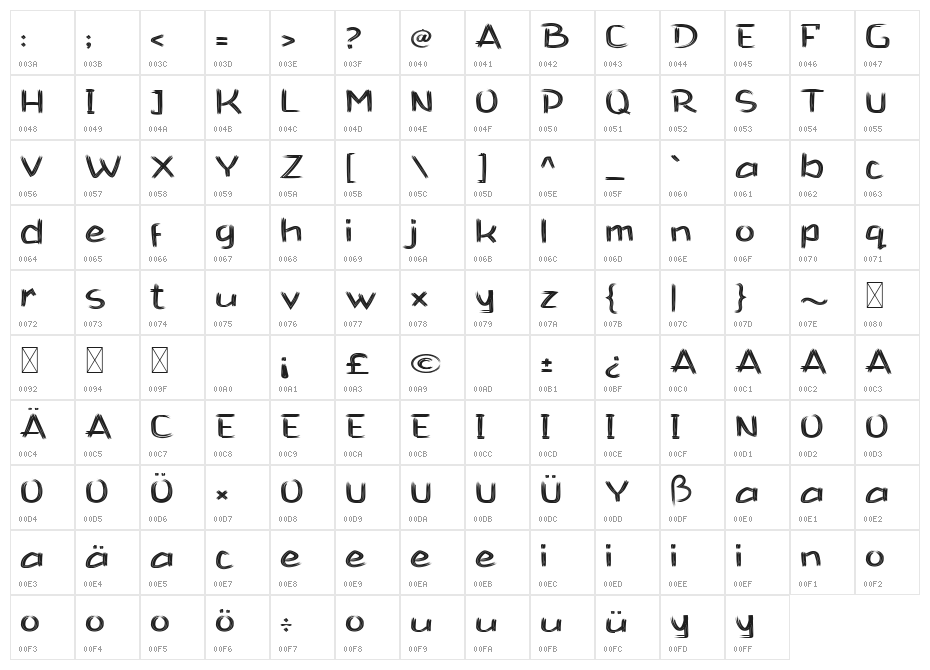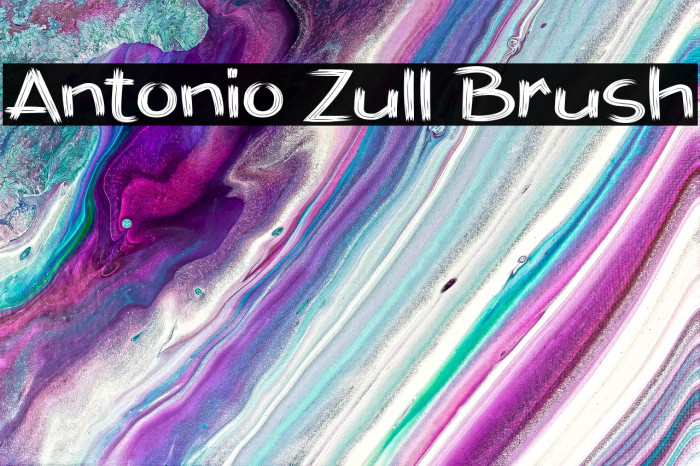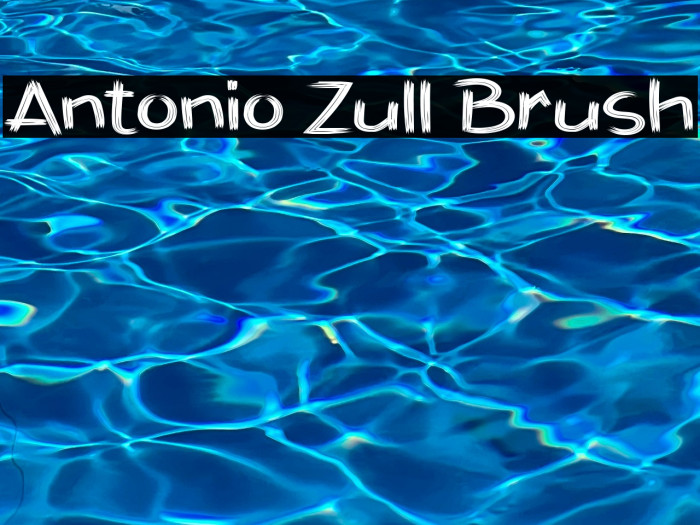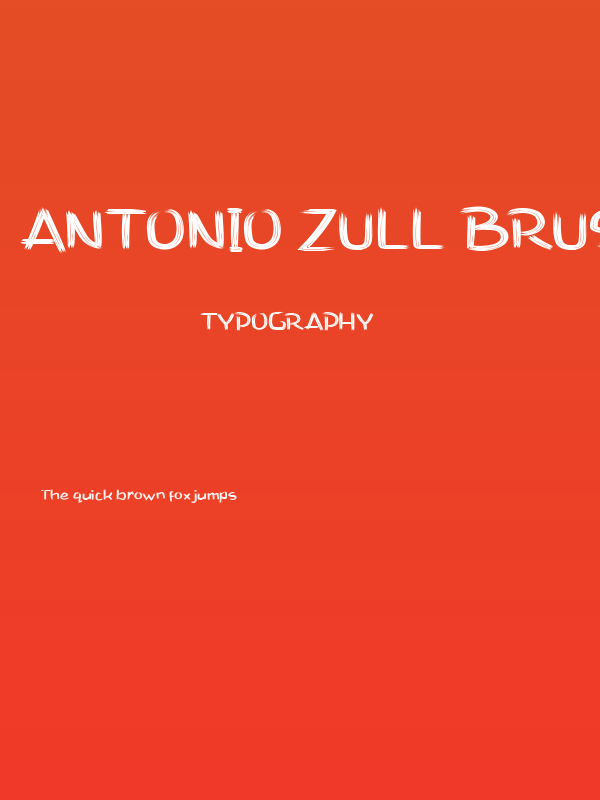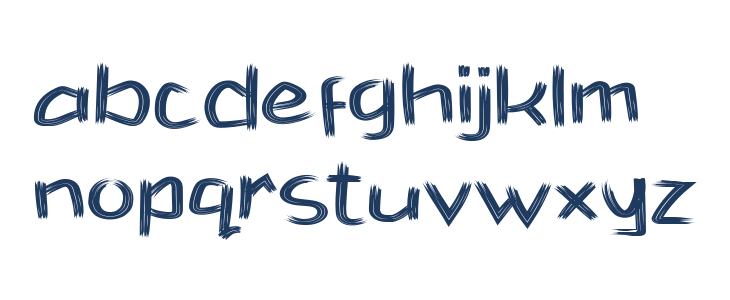
Antonio Zull Brush Font
Antonio Zull Brush Description
This font features a dynamic and energetic brush style, characterized by bold, sweeping strokes that give it a hand-painted appearance. The letters have a slightly irregular form, adding to the authentic brush effect. The uppercase and lowercase characters maintain a consistent style, with sharp edges and varying stroke widths that create a sense of movement and fluidity. The numbers and special characters are designed to match the overall aesthetic, ensuring a cohesive look across all text. This font is ideal for projects that require a bold, artistic touch.
| Proposed Projects | Ideal for branding, posters, artistic projects, and any design requiring a bold, expressive typeface. |